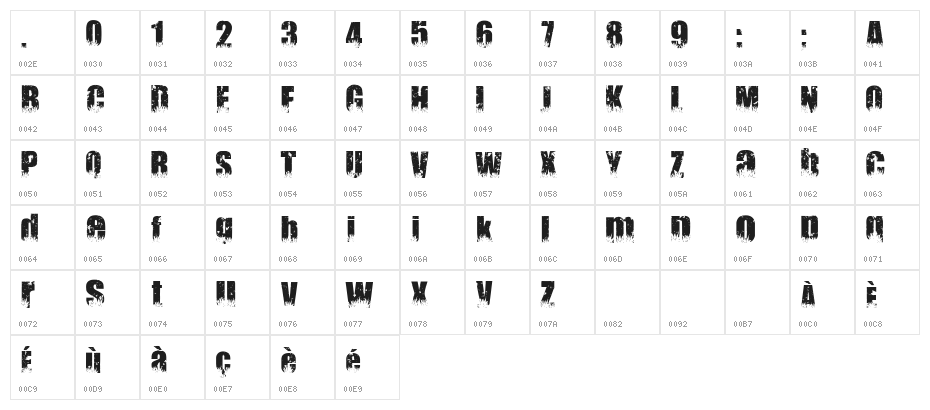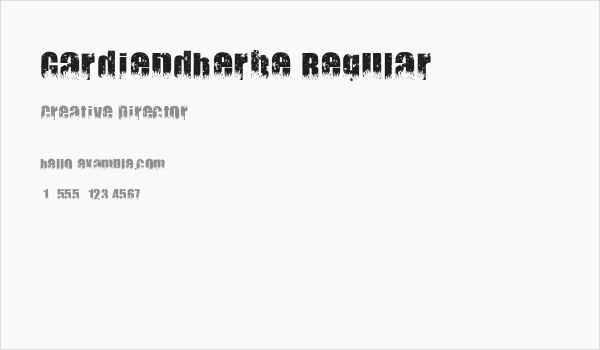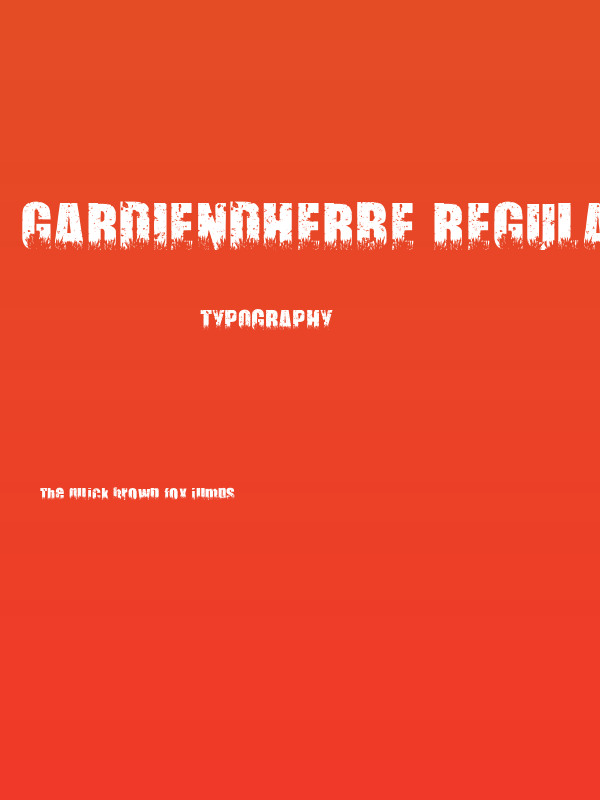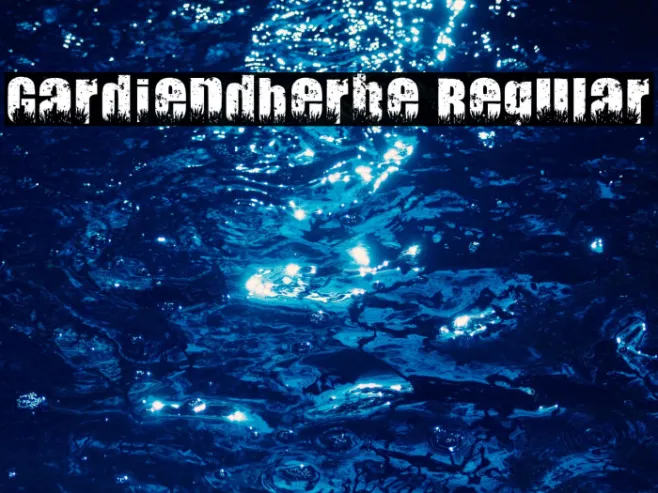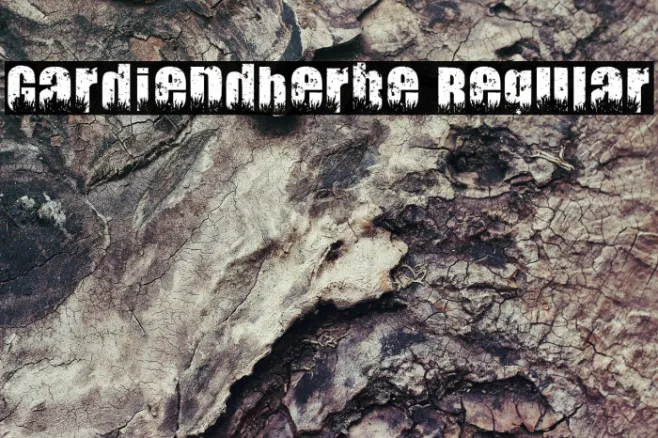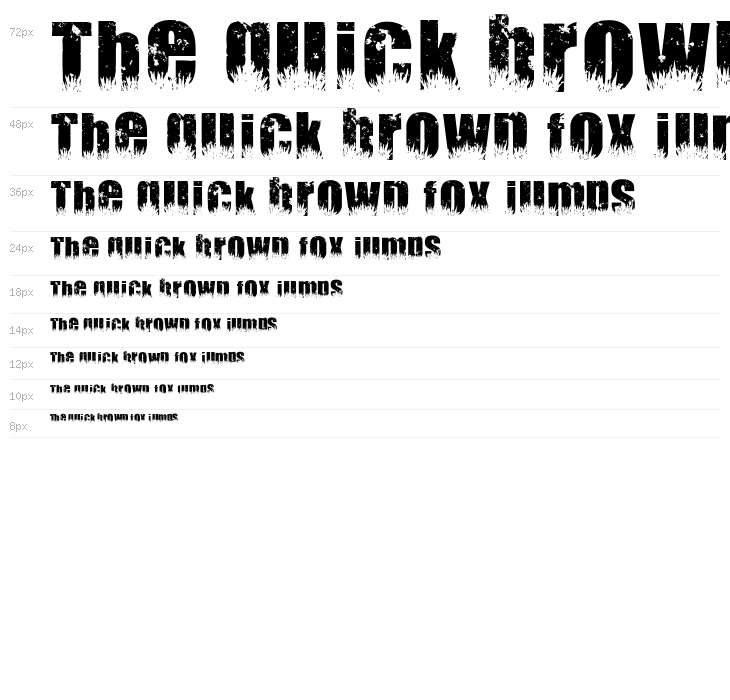
Gardiendherbe Regular Font
Gardiendherbe Regular Description
This font features a bold and rugged design, with characters that appear to be overgrown with grass or foliage, giving it a natural and organic feel. The uppercase and lowercase letters, as well as numbers, are heavily textured, creating a sense of depth and movement. The unique style makes it stand out, perfect for projects that require an earthy or outdoor theme. The font's distinct appearance is ideal for capturing attention and conveying a sense of wildness or untamed nature.
| Proposed Projects | Ideal for outdoor-themed posters, nature-inspired branding, environmental campaigns, and rustic event invitations. |